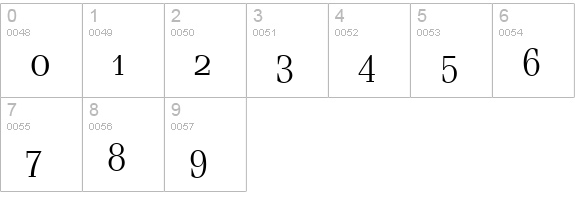
Ferrara-Osf-Light-Regular is a refined, elegant variant in the Ferrara typeface family \xE2\x80\x94 well suited to elegant body text, refined sub-headings, and luxury branding.
Ferrara-Osf-Light-Regular is a modern and elegant typeface that exudes sophistication and style. With its clean lines and subtle curves, this font is perfect for a wide range of design projects, from branding to editorial layouts. Its light weight adds a touch of delicacy and refinement to any text, making it ideal for conveying a sense of elegance and grace. This versatile font is available for free download at FontsMarket.com, allowing designers and creatives to easily access and use it in their projects. Whether you're working on a website, a poster, a brochure, or any other design piece, Ferrara-Osf-Light-Regular is sure to elevate your work with its timeless charm and versatility. Don't miss out on this opportunity to enhance your designs with this beautiful and free font.